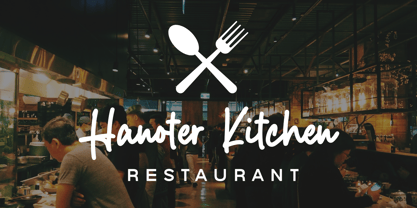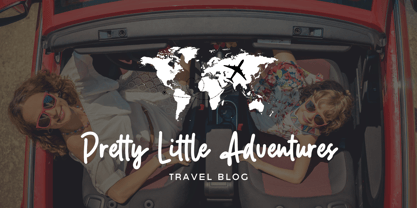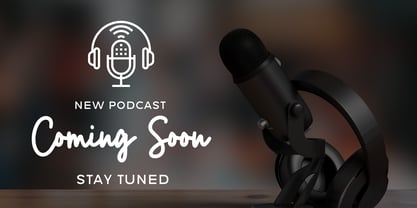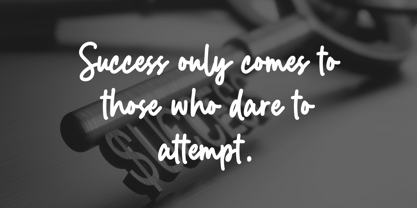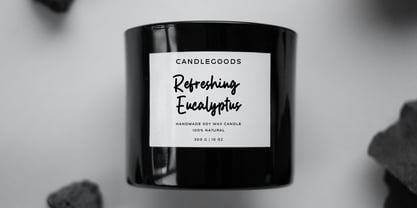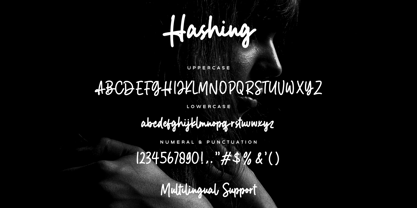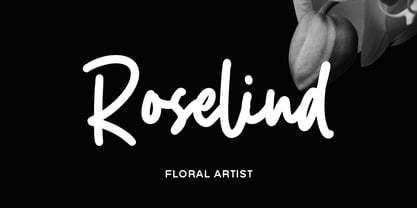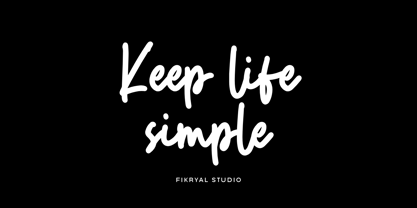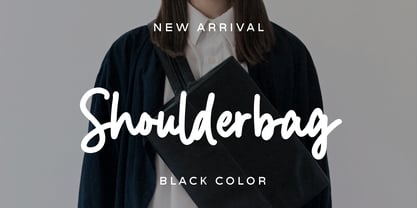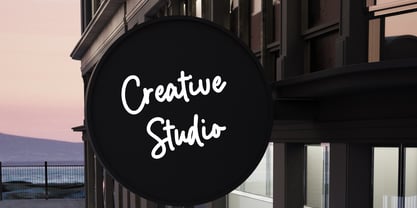
Hashing
by Fikryal
The Hashing Font Family was designed by Muhammad Fikry and published by Fikryal. Hashing contains 1 styles. More about this family
Hashing is a casual script font that exudes a relaxed and friendly vibe. With its natural hand-drawn strokes and smooth letter flow, Hashing is perfect for a wide range of design needs, from branding and invitations to social media graphics. Each character is crafted with a creative touch, adding a personal and warm feel to any project.
This font supports multiple languages, making it a versatile choice for creating unique and captivating designs. Let your words come to life with Hashing’s expressive charm!